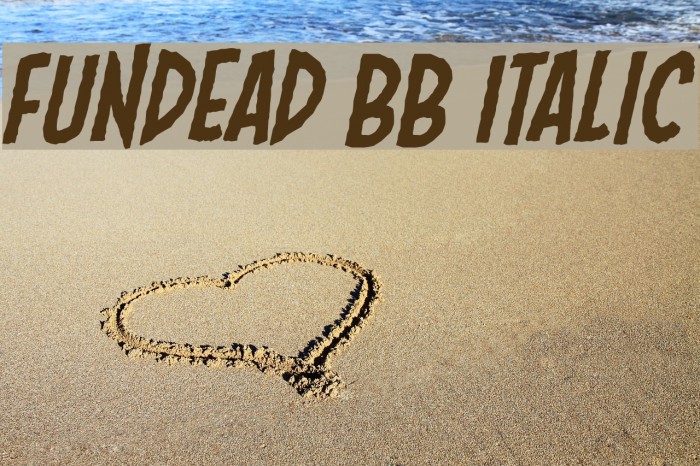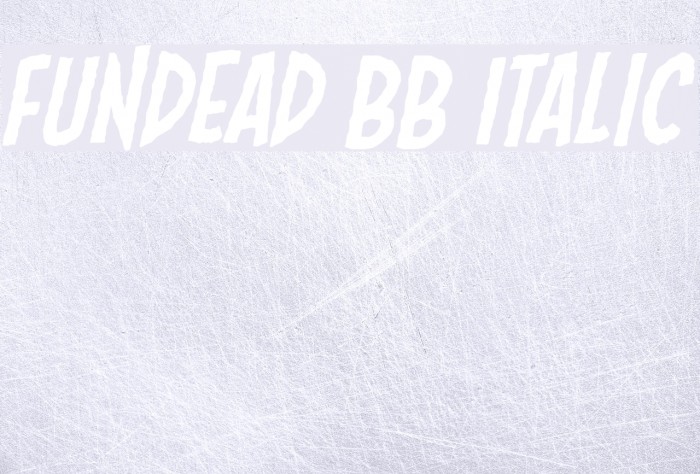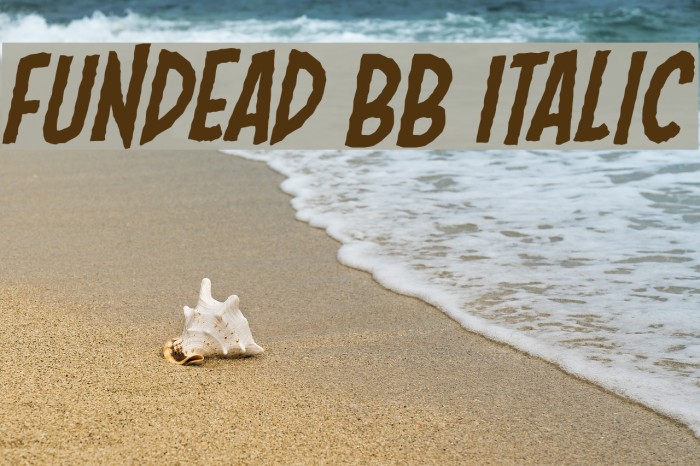
Fundead BB Italic Font
This font features a bold and dynamic style with a distinct italic slant, giving it an energetic and lively appearance. The characters are thick and slightly rough around the edges, contributing to a hand-drawn, expressive feel. The uppercase and lowercase letters maintain consistent proportions, while the numerals and special characters are designed to match the overall aesthetic. The font's boldness and slant make it stand out, ideal for grabbing attention in various design contexts.
A bold, italic, and energetic font with a hand-drawn appearance.
- Proposed Projects: Perfect for posters, headlines, branding, and any project requiring a bold, expressive touch.